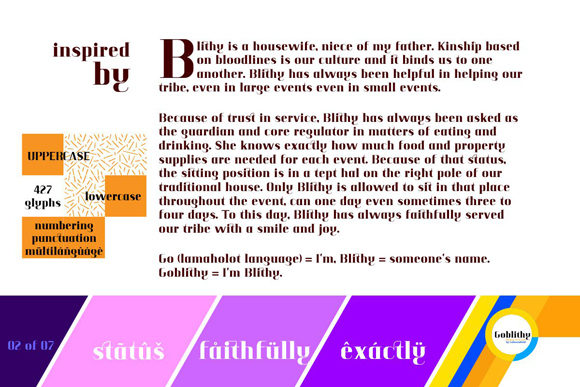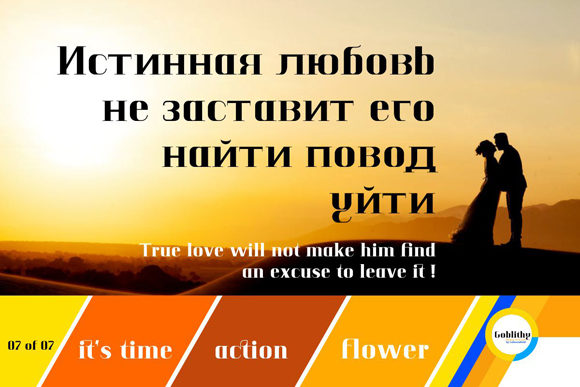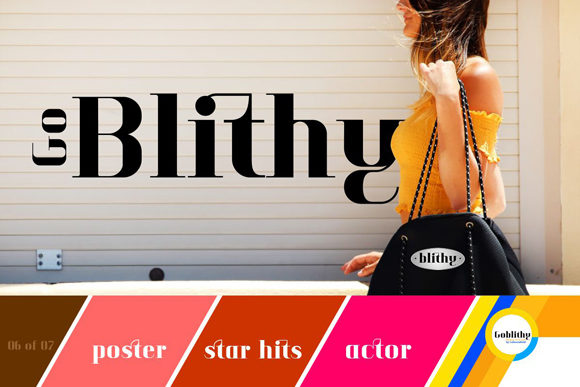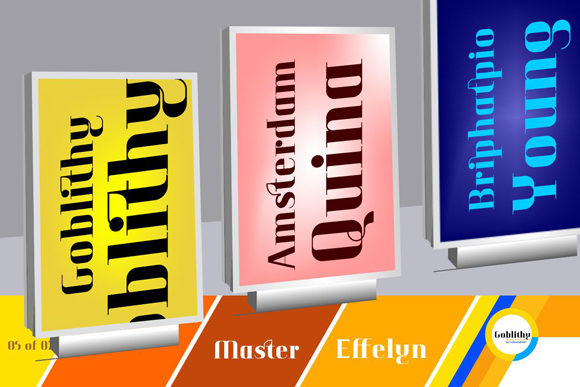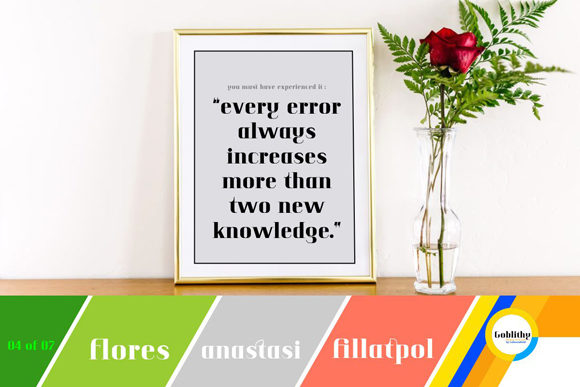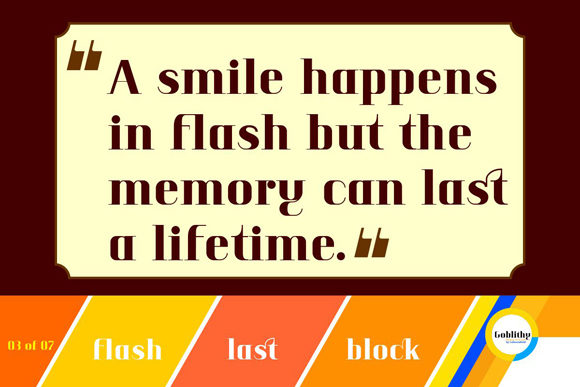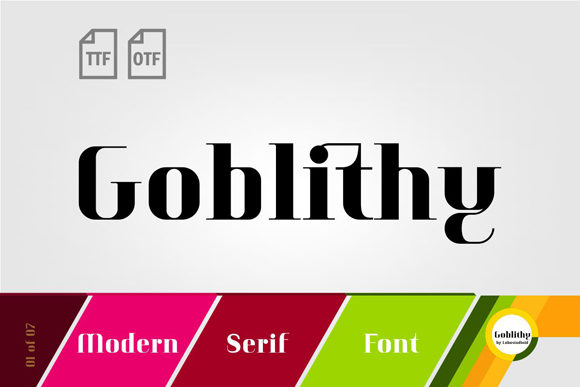
Goblithy Font: Unleash Your Creativity with this Whimsical Serif Font
In the world of typography, fonts play a crucial role in bringing creative ideas to life. For designers, crafters, and artists, finding the perfect font can be a daunting task. However, if you’re looking for a font that embodies fun, quirkiness, and authenticity, look no further than Goblithy Font. This enchanting serif font is sure to turn any creative idea into a true standout.
The Goblithy Difference: A Font that Stands Out
Goblithy Font is a unique and captivating serif font that is designed to add a touch of whimsy to any creative project. Its distinctive lettering style, characterized by subtle irregularities and charming imperfections, gives it a handmade feel that is both authentic and engaging. Whether you’re working on a branding project, crafting a logo, or designing a social media graphic, Goblithy Font is the perfect choice for those who want to add a dash of personality to their work.
Key Features of Goblithy Font
• Unique Serif Design: Goblithy Font boasts a one-of-a-kind serif design that sets it apart from other fonts. Its subtle flair and distinctive lettering style make it perfect for creative projects that require a touch of elegance and sophistication.
• Quirky and Playful: Goblithy Font is not your average serif font. Its quirky and playful design makes it perfect for projects that require a dash of humor and whimsy.
• Authentic and Handmade Feel: The font’s subtle irregularities and charming imperfections give it a handmade feel that is both authentic and engaging.
• Multipurpose: Goblithy Font is a versatile font that can be used for a wide range of creative projects, from branding and logos to social media graphics and craft projects.
Why Designers and Crafters Love Goblithy Font
Designers and crafters love Goblithy Font for its unique and captivating design. Here are just a few reasons why:
• Adds Personality to Any Project: Goblithy Font is the perfect way to add a dash of personality to any creative project. Its quirky and playful design makes it perfect for projects that require a touch of humor and whimsy.
• Perfect for Branding and Logos: Goblithy Font is a great choice for branding and logo design. Its unique serif design and quirky personality make it perfect for businesses that want to stand out from the crowd.
• Great for Crafting and DIY Projects: Goblithy Font is also perfect for crafters and DIY enthusiasts. Its handmade feel and authentic design make it perfect for crafting and DIY projects, such as handmade cards, gift tags, and other paper crafts.
How to Use Goblithy Font in Your Creative Projects
Using Goblithy Font in your creative projects is easy. Here are a few tips to get you started:
• Pair it with Other Fonts: Goblithy Font pairs well with other fonts, such as sans-serif fonts and script fonts. Experiment with different font combinations to find the perfect look for your project.
• Use it for Headlines and Titles: Goblithy Font is perfect for headlines and titles. Its unique serif design and quirky personality make it perfect for grabbing attention and adding a touch of personality to your project.
• Experiment with Colors and Textures: Goblithy Font looks great in a variety of colors and textures. Experiment with different colors and textures to find the perfect look for your project.
In conclusion, Goblithy Font is a unique and captivating serif font that embodies fun, quirkiness, and authenticity. Its distinctive lettering style, quirky personality, and handmade feel make it perfect for designers, crafters, and artists who want to add a dash of personality to their creative projects. Whether you’re working on a branding project, crafting a logo, or designing a social media graphic, Goblithy Font is the perfect choice. So why wait? Download Goblithy Font today and unleash your creativity!